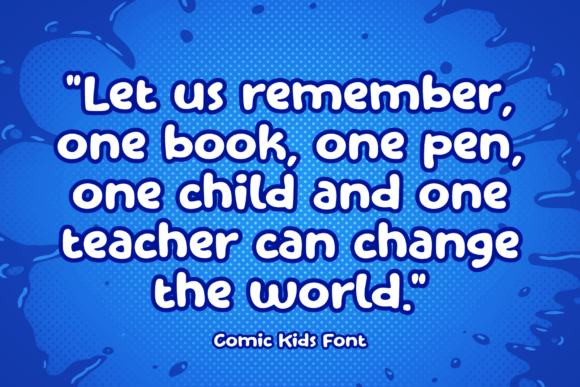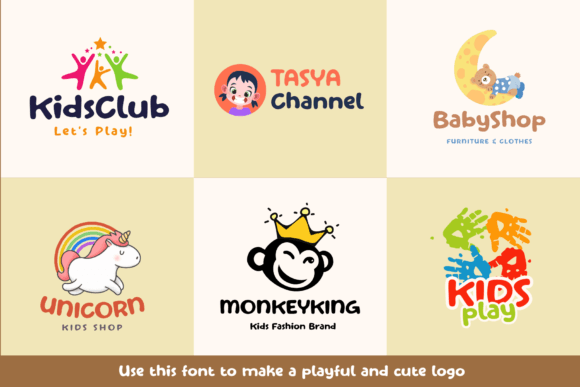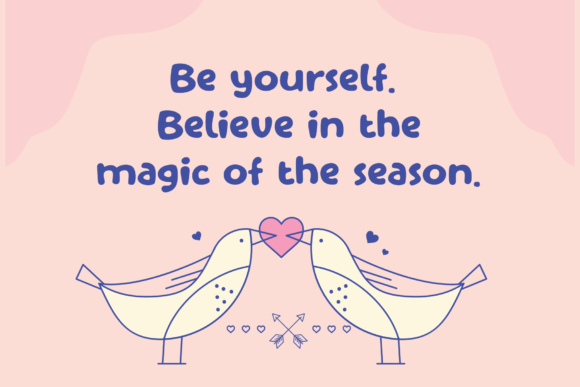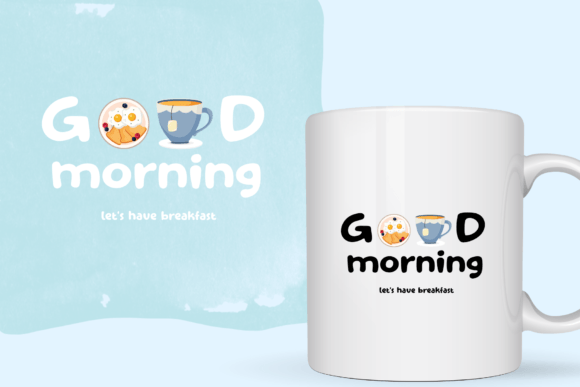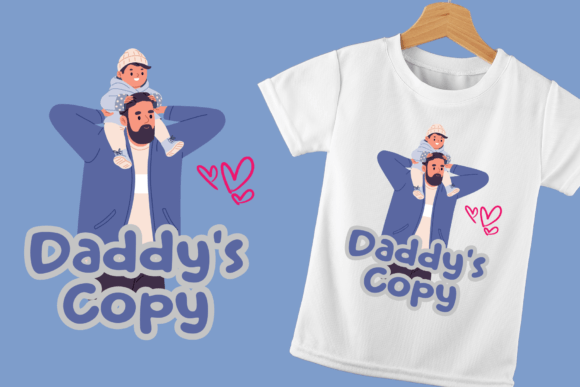
Introducing Comic Kids Font: The Ultimate Choice for Playful Designs
Are you looking for a font that can add a touch of youthful delight to your designs? Look no further than Comic Kids Font! This adorable and playful font is perfect for projects that require a lighthearted and inviting style. In this article, we’ll explore the features and benefits of Comic Kids Font, and why it’s a must-have for designers and crafters.
The Charm of Comic Kids Font
Comic Kids Font is a cute and playful font that radiates fun and charm. Its whimsical letterforms and cheerful design make it an excellent choice for projects that need a dash of personality. The font’s playful style is reminiscent of comic books and children’s illustrations, making it perfect for designs that require a youthful and energetic feel.
Key Features of Comic Kids Font
• Uppercase and Lowercase Letters: The font includes both uppercase and lowercase letters, allowing you to create a wide range of designs and text styles.
• Multilingual Support: Comic Kids Font supports multiple languages, making it an excellent choice for designers working on international projects.
• Numerals and Punctuation: The font includes numerals and punctuation marks, providing everything you need to create engaging and well-designed text.
Perfect for Children’s Books and Playful Branding
Comic Kids Font is an excellent choice for children’s books, playful branding, and any design that requires a lighthearted and inviting style. The font’s playful and cheerful design will appeal to kids and adults alike, making it perfect for:
• Children’s book illustrations and storybooks
• Playful branding and packaging designs
• Invitations and party decorations
• Educational materials and worksheets
• Digital and print media
Why Choose Comic Kids Font?
With so many fonts available, why choose Comic Kids Font? Here are just a few reasons:
• Unique and Playful Style: Comic Kids Font offers a unique and playful style that’s sure to stand out in any design.
Tips for Using Comic Kids Font
Here are a few tips for using Comic Kids Font in your designs:
• Pair with Other Fonts: Experiment with pairing Comic Kids Font with other fonts to create a unique and visually appealing design.
• Use Bright Colors: Bright colors will enhance the playful and cheerful design of Comic Kids Font.
• Experiment with Sizes: Don’t be afraid to experiment with different font sizes to create visual interest and hierarchy in your design.
Comic Kids Font is a must-have for designers and crafters looking to add a touch of youthful delight to their designs. With its playful and cheerful design, multilingual support, and high-quality file formats, this font is perfect for children’s books, playful branding, and any design that requires a lighthearted and inviting style. Download Comic Kids Font today and bring smiles and warmth to your work!